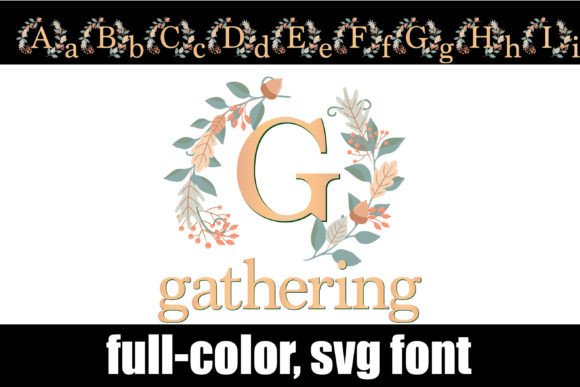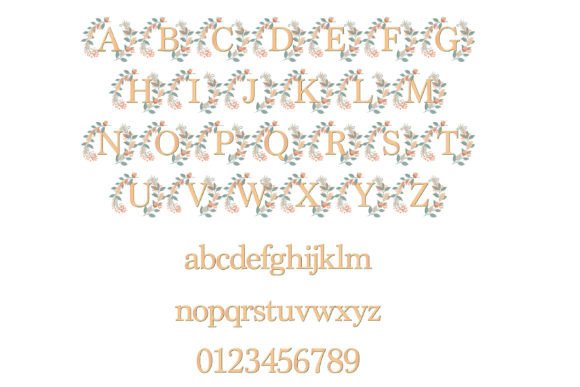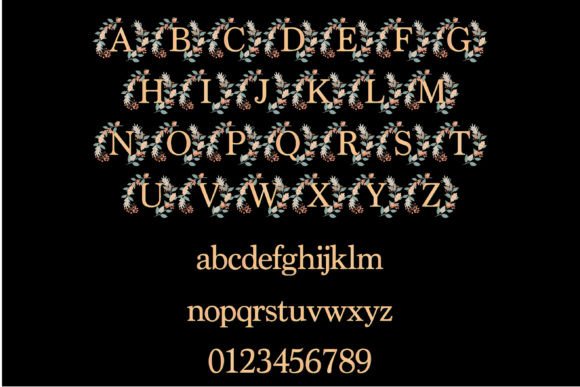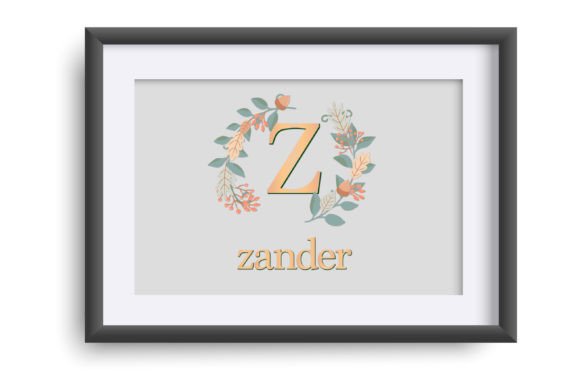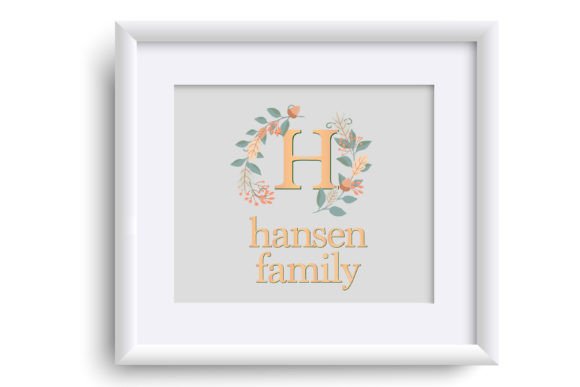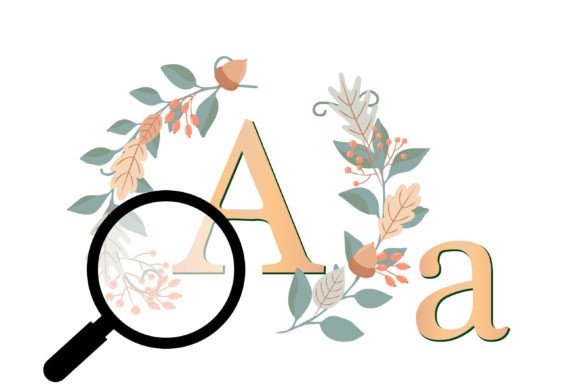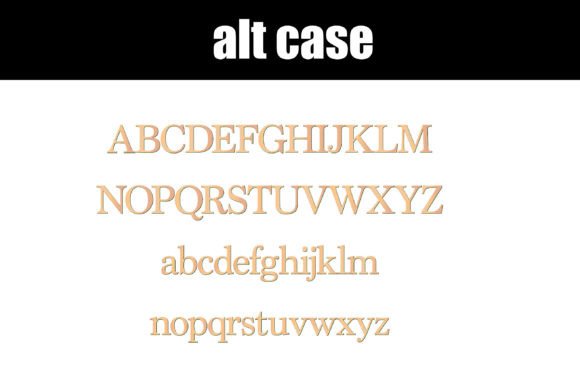
Gathering Font
Introducing Gathering, a stunning full-color font that combines the elegance of a serif typeface with the festive spirit of Thanksgiving. This font features a beautiful wreath design around the uppercase letters, making it perfect for monogramming and adding a touch of holiday charm to your designs.
The lowercase letters of Gathering are also full-color, showcasing their vibrant and eye-catching appearance. They don’t include the wreath elements, allowing for versatile usage across various creative projects. Additionally, the font provides an alternate case option with plain uppercase letters, providing even more flexibility in your designs.
Gathering is the ideal choice for Thanksgiving-inspired designs, including invitations, greeting cards, menus, banners, and more. Its intricate details and rich color palette will capture the essence of the season and add a touch of warmth and elegance to your creations.
Add Gathering confidently to your projects and witness how it brings your designs to life with its captivating details and festive flair. Embrace the beauty and versatility of this font, and let it enhance your Thanksgiving-themed creations with its elegant wreath elements and vibrant colors.